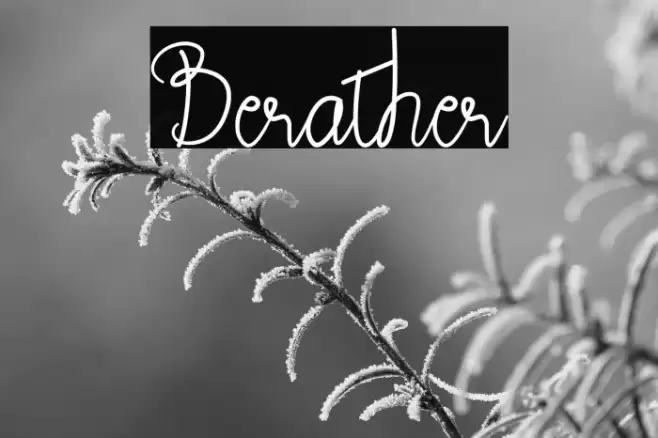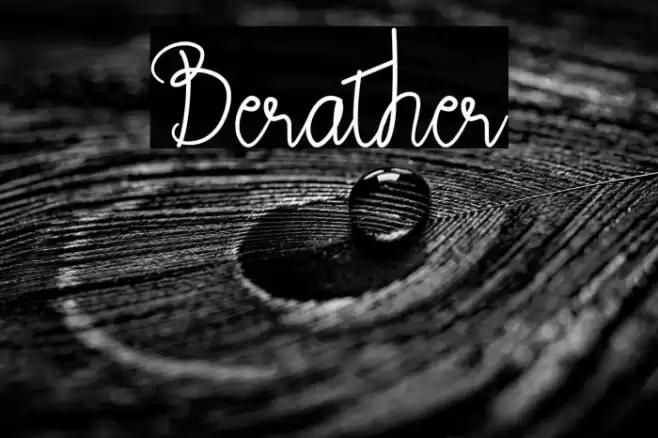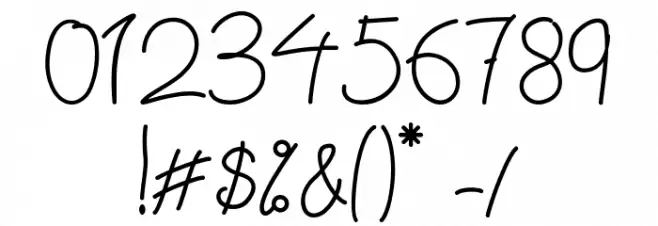
Berather Font
Berather Description
This font features a playful and whimsical handwritten style, characterized by its flowing and interconnected letterforms. The uppercase letters are tall and slightly narrow, with a consistent stroke width that gives them a clean and modern appearance. The lowercase letters are more fluid, with some letters extending below the baseline, adding a touch of elegance and movement. The numerals are rounded and maintain the same playful style, making them easy to read while still fitting in with the overall aesthetic. Special characters are creatively designed, maintaining the font's unique style. This font is perfect for projects that require a personal and friendly touch, such as invitations, greeting cards, or branding for creative businesses.
A playful handwritten font with flowing, interconnected letterforms and a whimsical style from Regular fonts.
- Overall Style: Whimsical
- Use Case: Headlines, Logos, Invitations